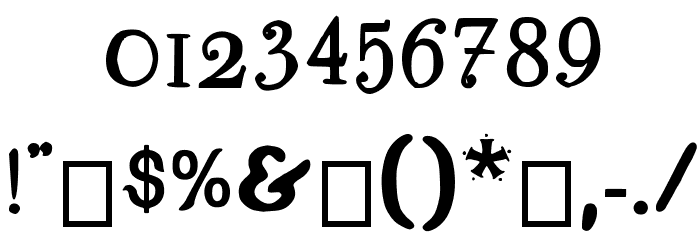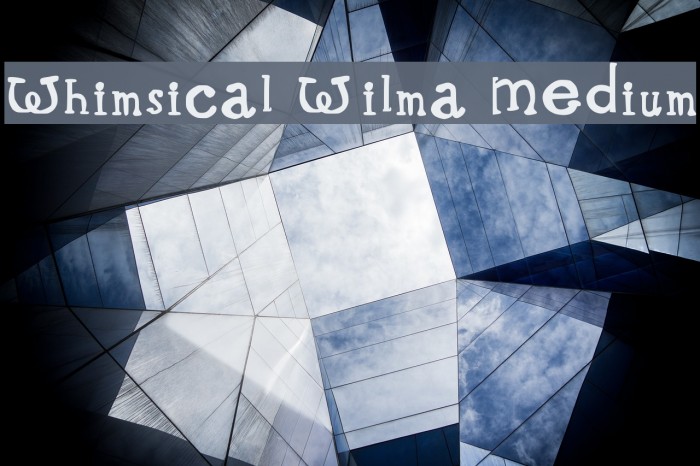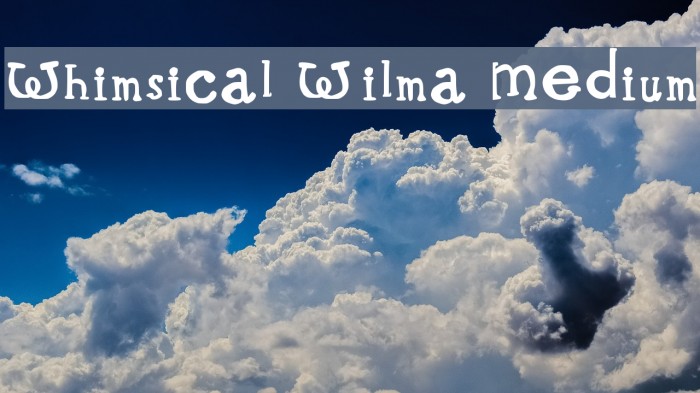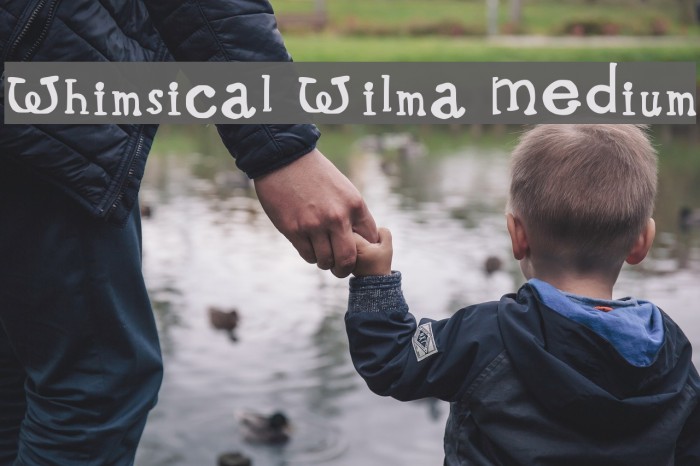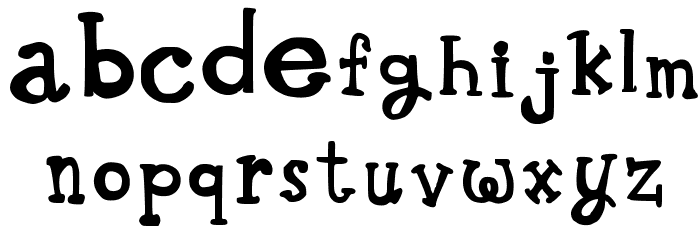
Whimsical Wilma Medium Font
Whimsical Wilma Medium Description
This font exudes a playful and whimsical charm, characterized by its quirky and irregular letterforms. The uppercase letters feature a mix of rounded and angular shapes, giving them a unique and lively appearance. The lowercase letters maintain this playful style, with some characters having exaggerated curves and loops. The numbers are bold and consistent with the overall whimsical theme, while the special characters add a touch of fun with their distinctive shapes. This font is perfect for projects that require a lighthearted and creative touch, such as children's books, playful branding, or artistic posters.
A playful and whimsical font with quirky, irregular letterforms from Uncategorized fonts.
- Proposed Projects: Ideal for children's books, playful branding, artistic posters, and creative invitations.
- Overall Style: Whimsical